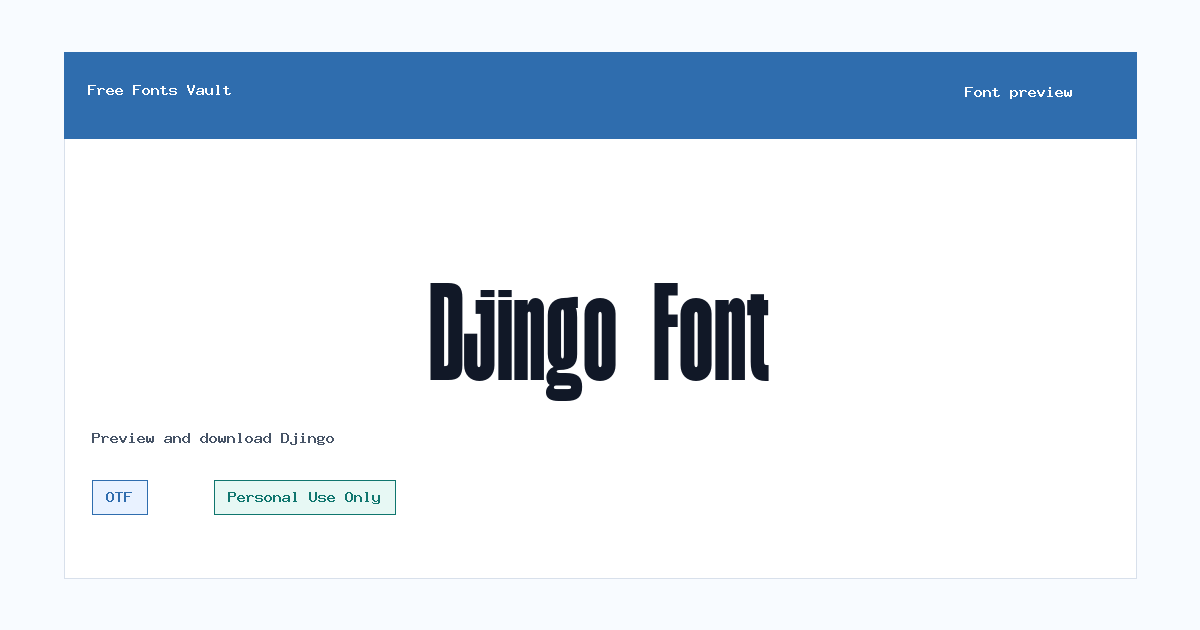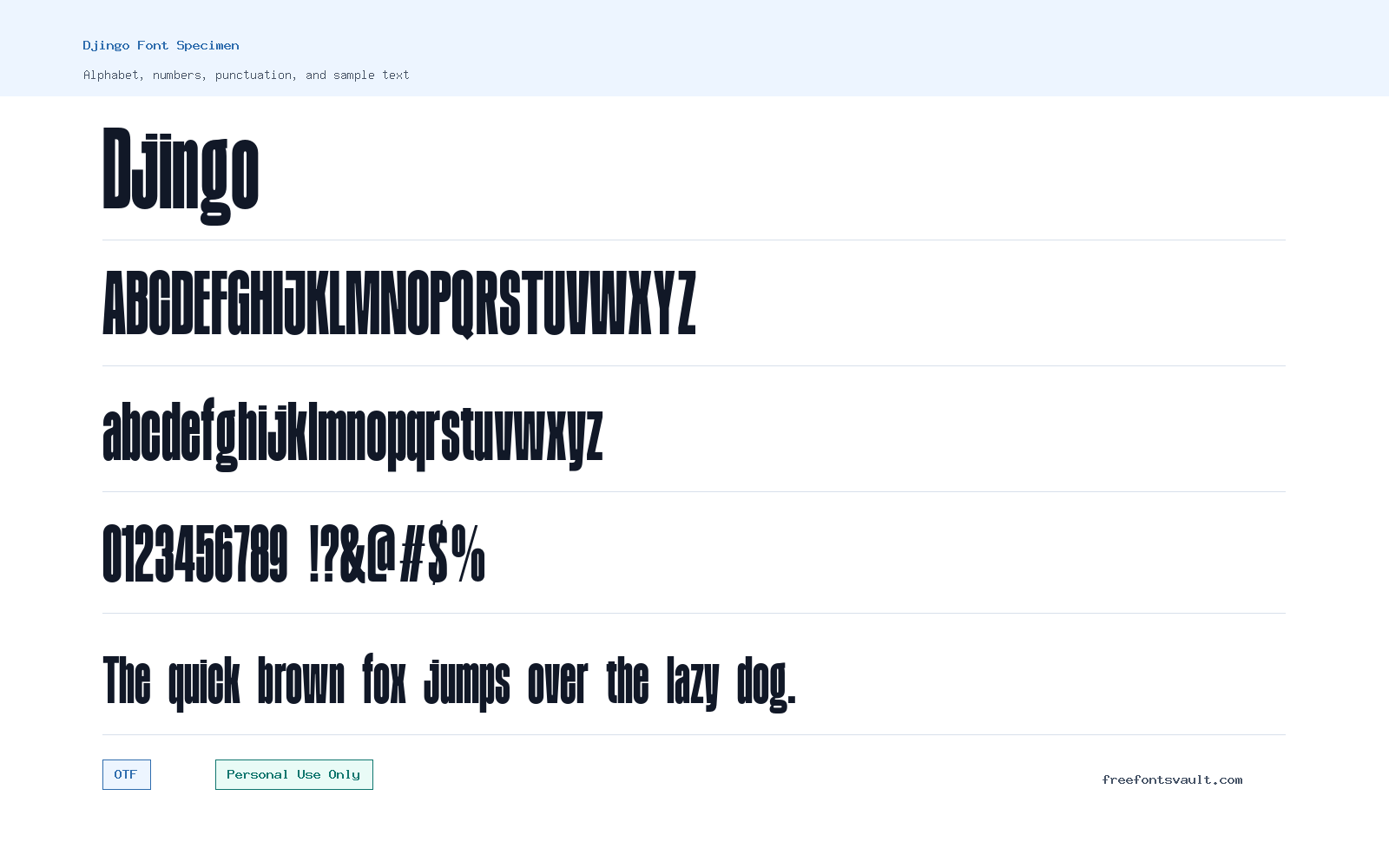
Djingo
- Designer Najril Ilham
Djingo is a condensed sans serif display font with a tall, firm look that works best when you need short text to feel bold and compact. It is a better fit for headlines, posters, logos, packaging ideas, and web mockups than for long paragraphs.
Djingo has the narrow proportions and strong display style that designers often choose when space is limited but the type still needs presence. The Regular style is provided as an OTF file, making it suitable for testing in common design apps and font preview tools. Its condensed build can help a wordmark, title, or poster line take up less horizontal space while still feeling direct and structured. Because the font is primarily a display face, it should be used with care in body text, small captions, or dense interface copy.
Use Djingo for short phrases where the shape of the letters is part of the design: event titles, social graphics, sports-style headlines, fashion lookbooks, music artwork, tech mockup banners, product labels, and logo concepts. In a logo process, test the exact brand name in uppercase, lowercase, and mixed case before committing, because condensed fonts can make spacing issues more visible. For posters and web headers, give the letters enough breathing room with tracking and line spacing. If your layout needs supporting text, pair Djingo with a simpler neutral sans serif for descriptions, navigation, and small details.
- Condensed sans serif display style suited to short, high-impact text
- Tall, compact letterforms that can save horizontal space in headlines
- Works best at larger sizes where spacing and shape can be seen clearly
- Useful for logo drafts, posters, packaging concepts, social graphics, and web mockups
- Not ideal as the main font for long reading text or small UI labels
- Logo concepts and wordmark testing
- Album, playlist, and music artwork
- Fashion, sports, or tech-themed visual layouts
- Packaging mockups and label concepts
- Hero headlines in website or app mockups
- Social media banners with short text
- Typography experiments that need a condensed display face
Djingo is credited to Najril Ilham in the font details. MyFonts lists the designer as Najril Ilham Amrullah and the publisher as Viswell, which appears to connect the font to Viswell Studio.
Start by previewing the exact words you plan to use, especially for logos and posters. Condensed display fonts can look strong in one word and cramped in another, so adjust tracking, test alternate sizes, and check legibility on mobile screens. For pairing, use Djingo only for the main title or brand word, then choose a clean sans serif with wider spacing for body copy. Avoid pairing it with another loud display font unless the design is intentionally experimental.
What kind of font is Djingo?
Djingo is a condensed sans serif display font. It is best used for short, prominent text rather than long paragraphs.
Who designed Djingo?
The font is credited to Najril Ilham. MyFonts lists the designer as Najril Ilham Amrullah and the publisher as Viswell.
Is Djingo good for website text?
It can work well for large hero headings or mockup titles. For paragraphs, menus, and small interface labels, pair it with a more readable sans serif.